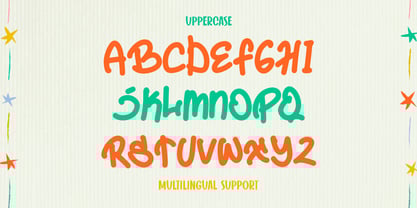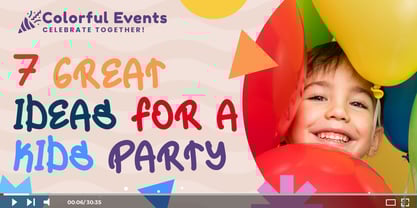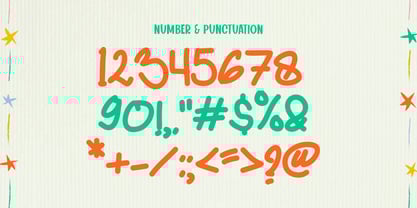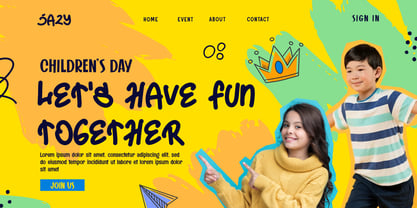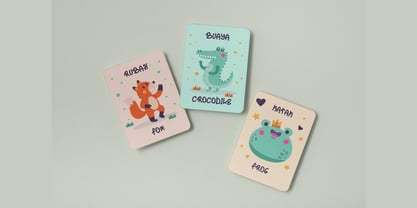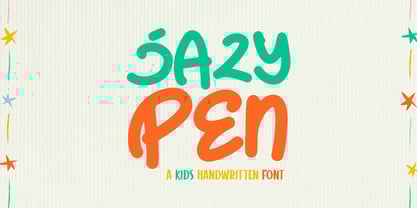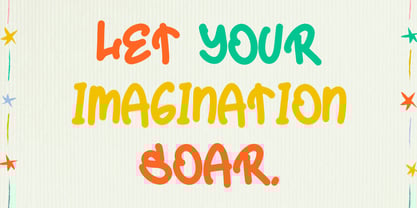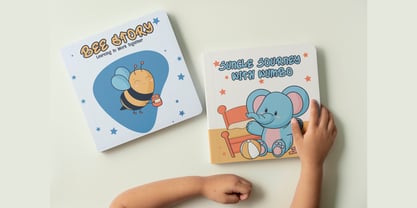
Jazy Pen
by Sipanji21
The Jazy Pen Font Family was designed by Sipanji and published by Sipanji21. Jazy Pen contains 1 styles. More about this family
Jazy Pen is a delightful handwritten font that captures the charm and authenticity of natural kids' handwriting. Designed with a cute and whimsical theme, this font brings a playful and youthful vibe to your projects. Its irregular strokes and organic feel make it ideal for designs aimed at children, such as storybooks, educational materials, birthday invitations, and creative branding. Jazy Pen is perfect for adding a hand-drawn touch to your work, ensuring your designs feel warm, approachable, and full of personality. Whether for school projects, playful logos, or social media graphics, Jazy Pen is a versatile choice that brings joy and creativity to any design.